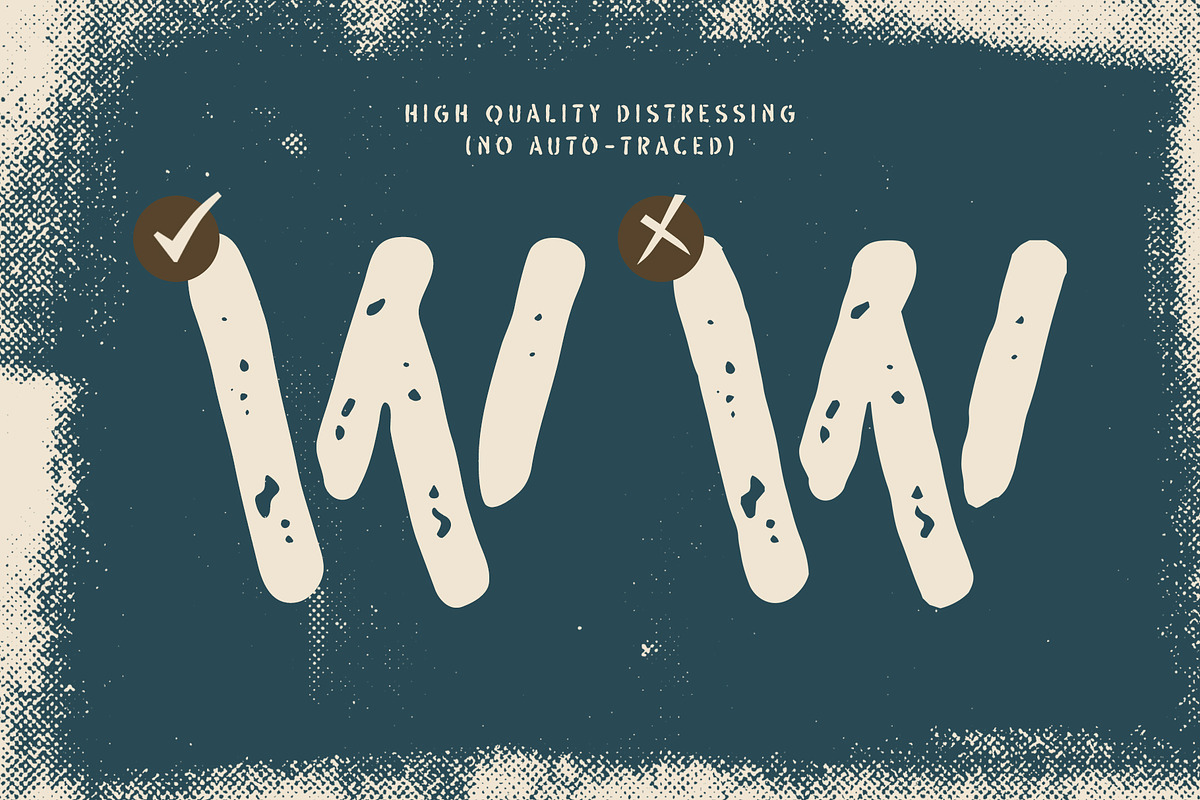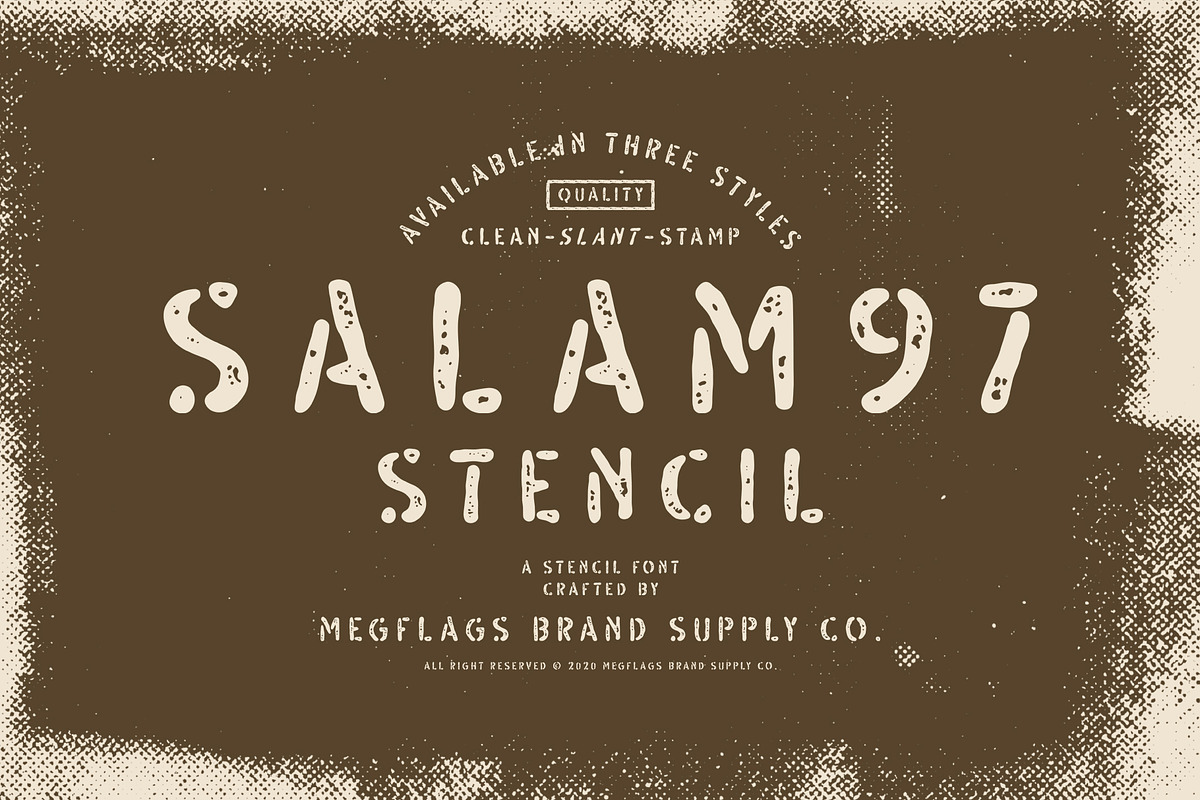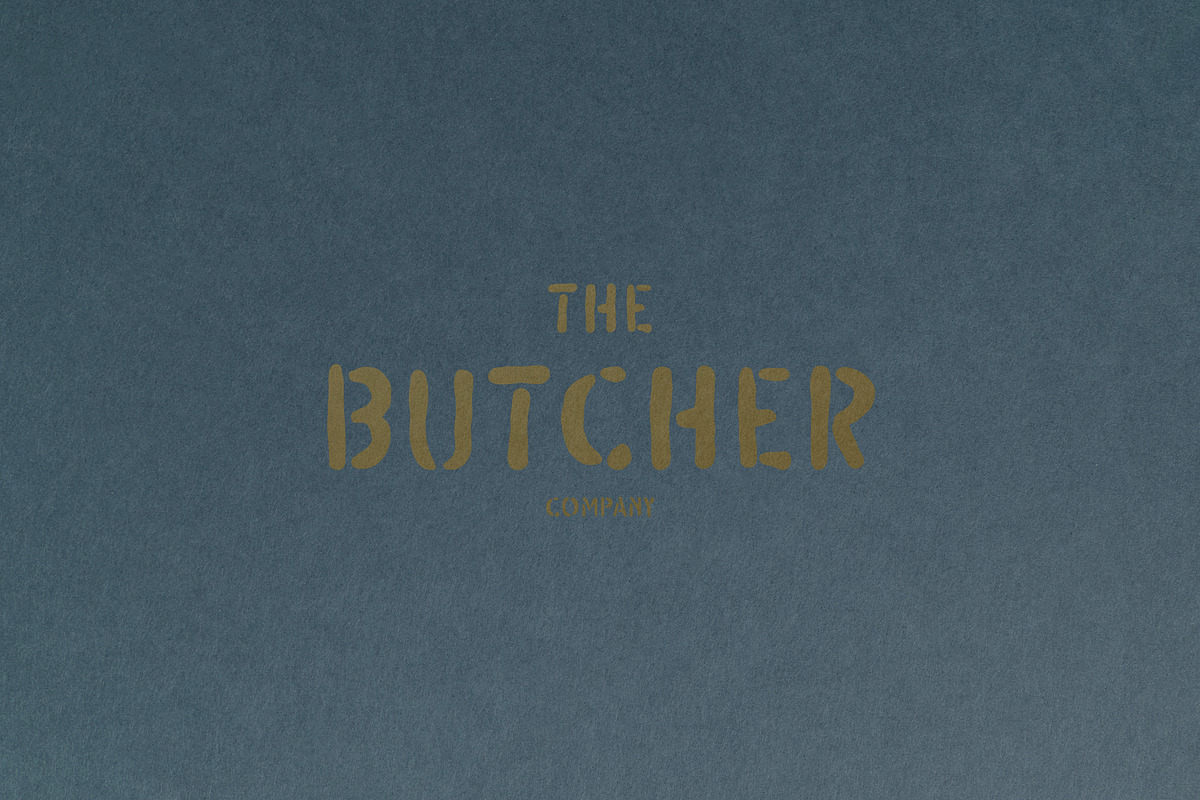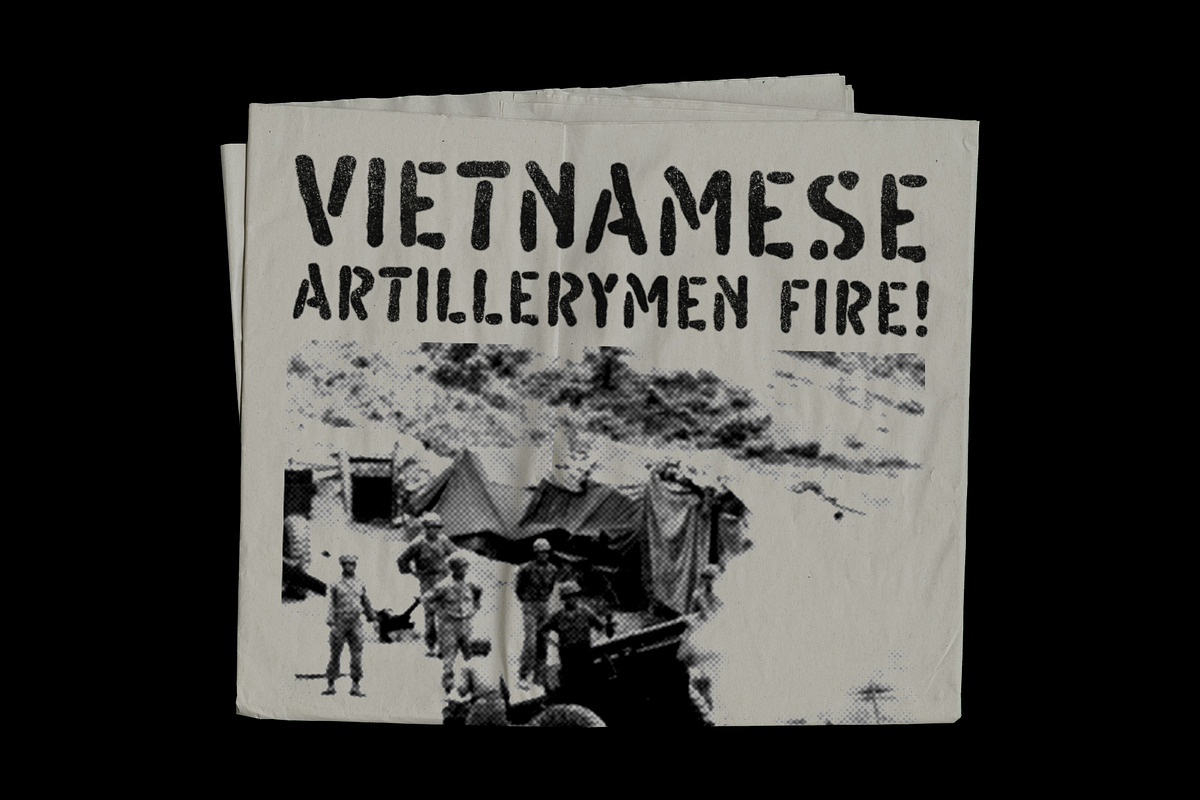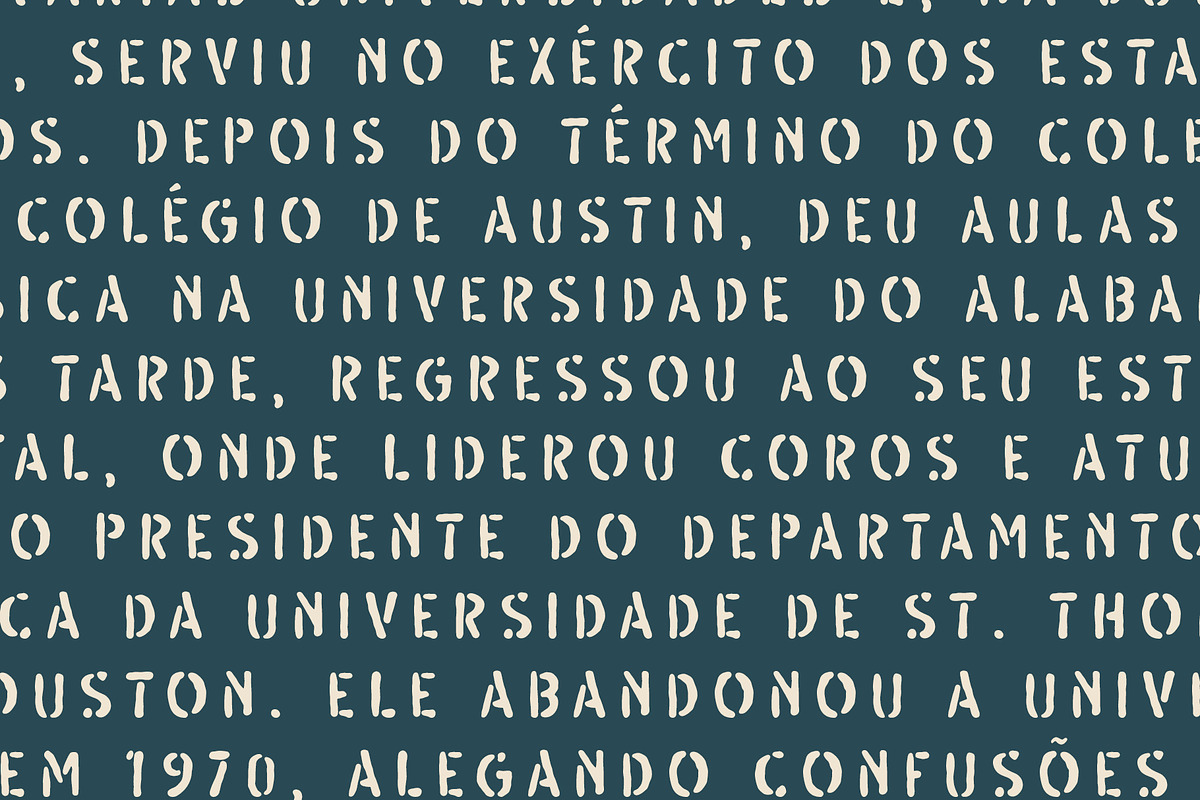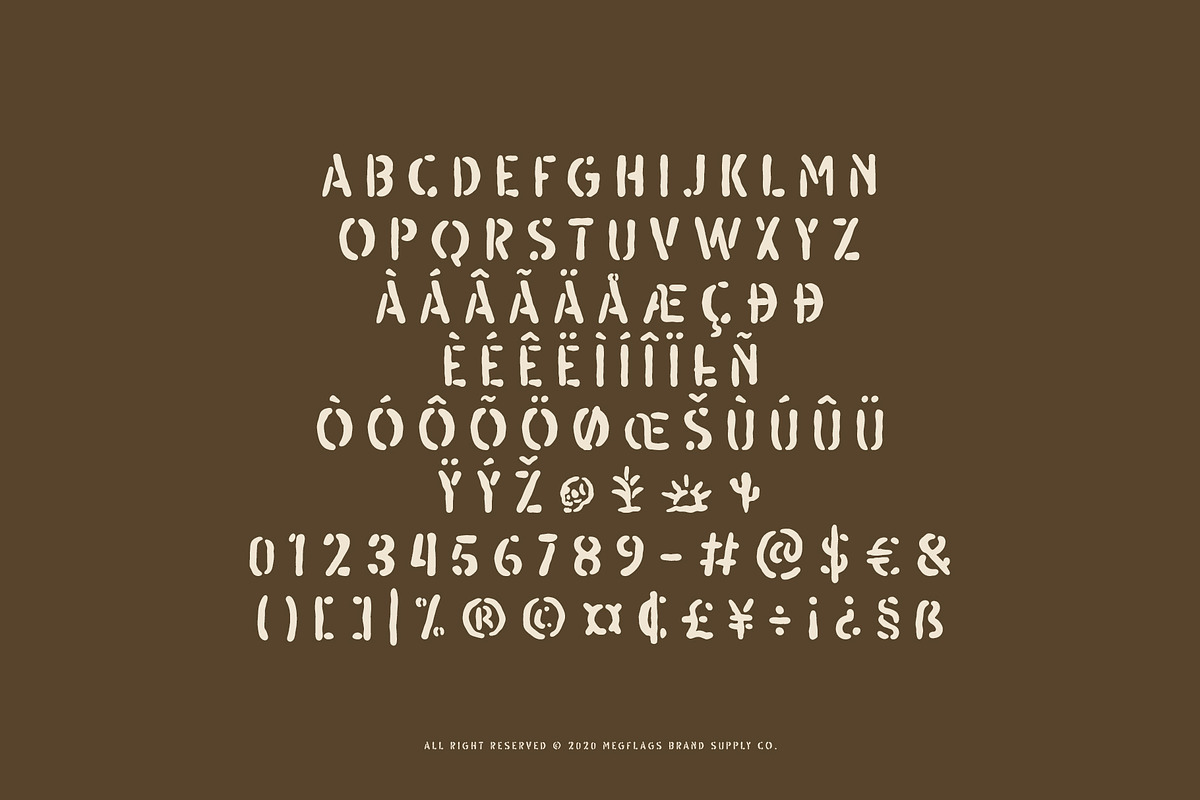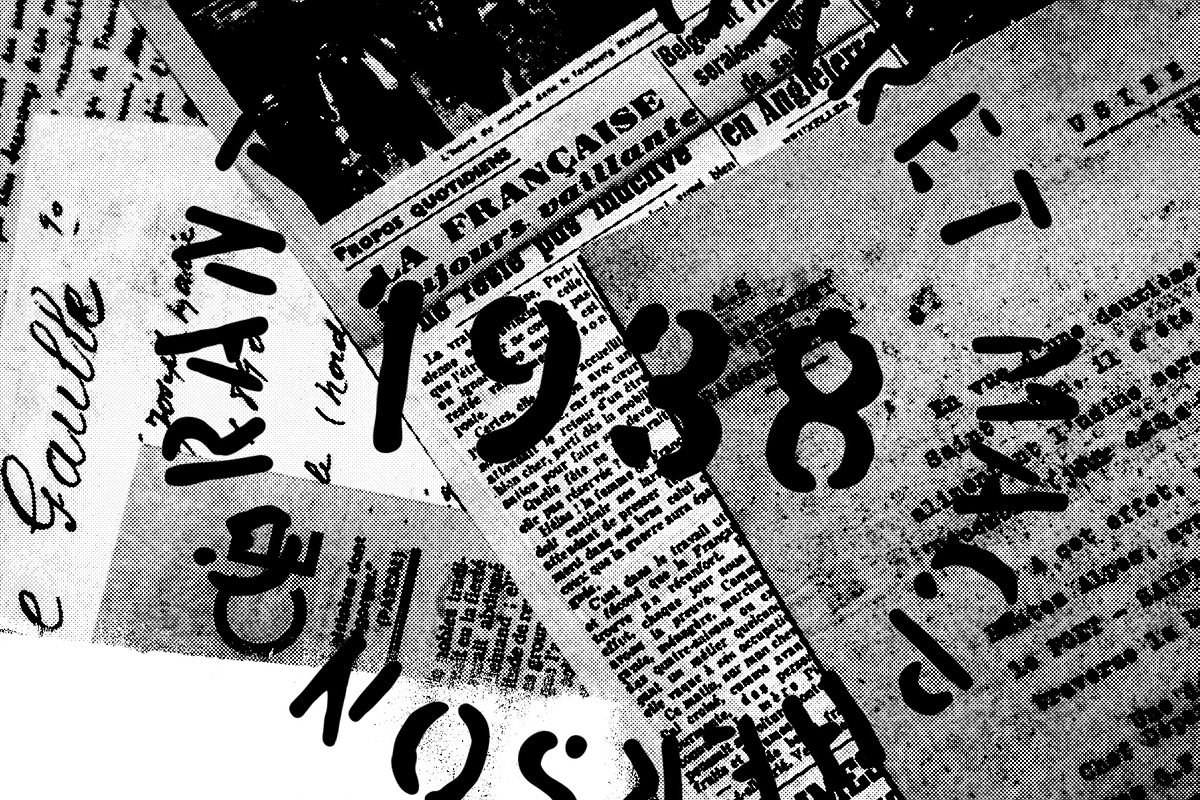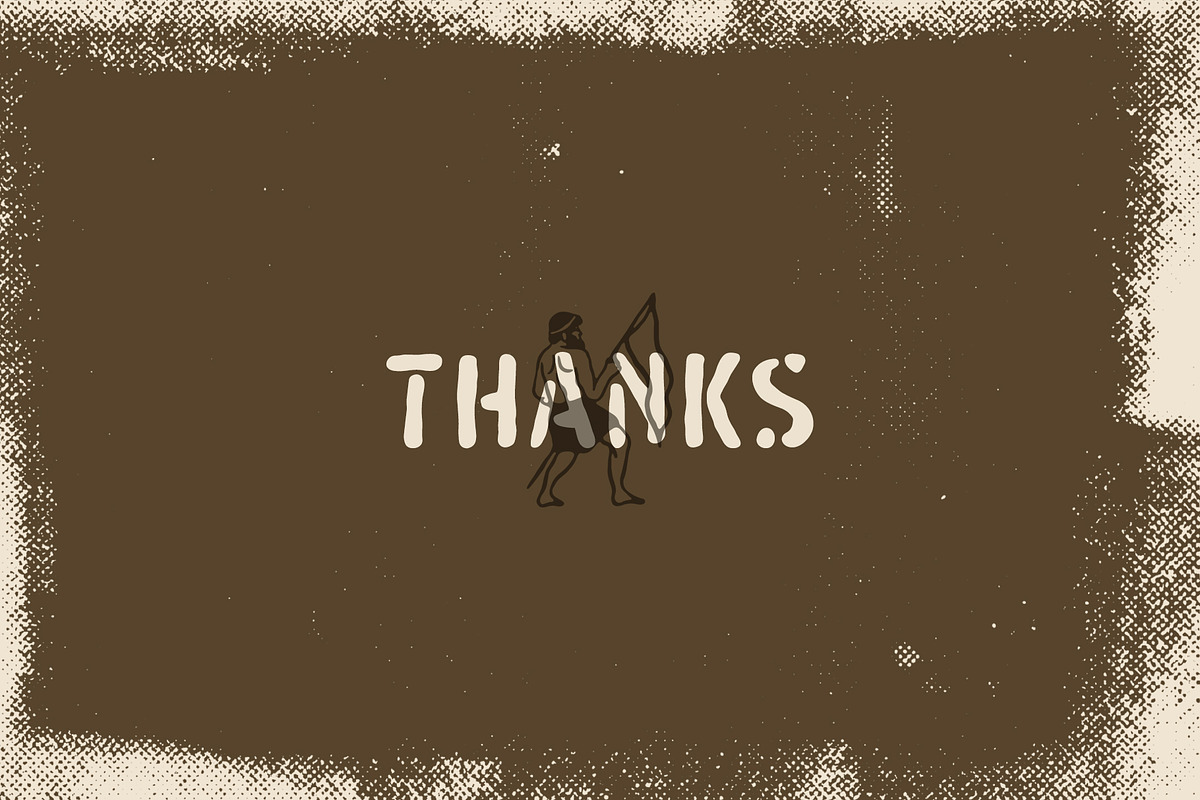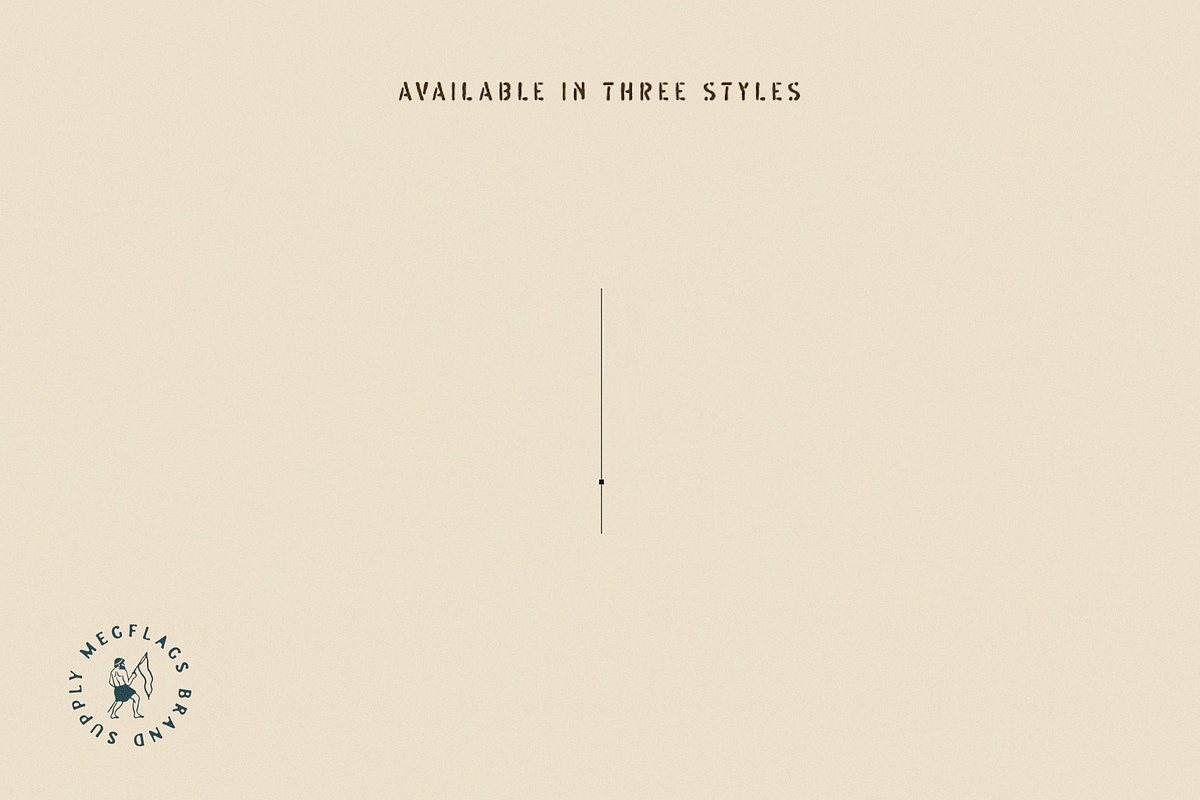
Salam97 Stencil
Introducing Salam97 Stencil Font
Comes with three styles: clean, slant, and stamp font. High quality for you merchandise, poster, or your branding project. Multilingual support. You will get OTF and TTF file.